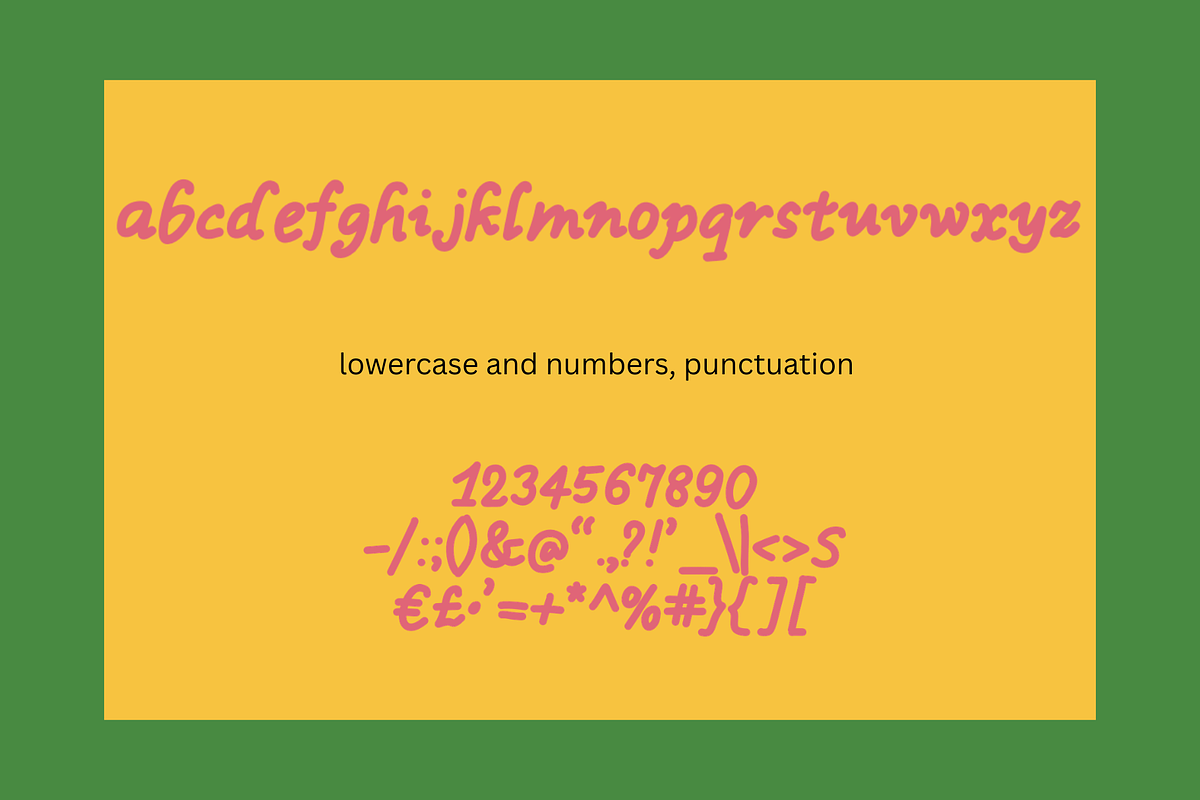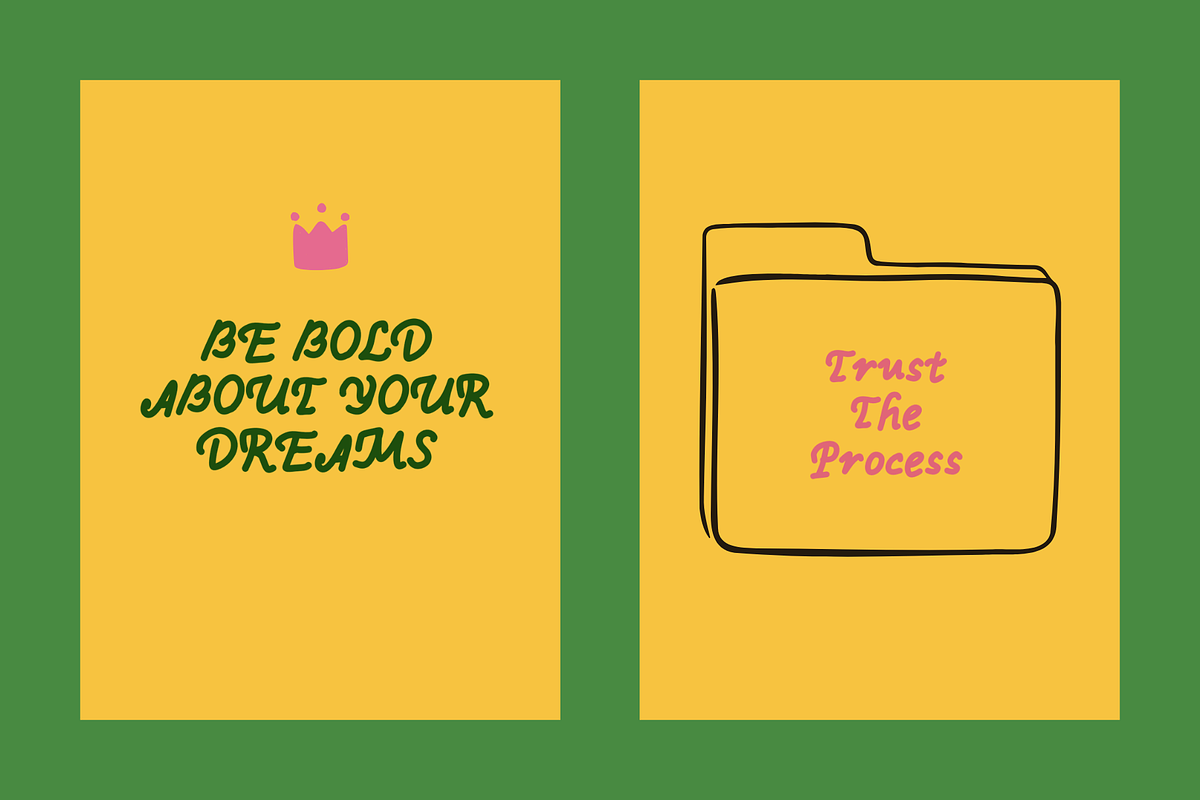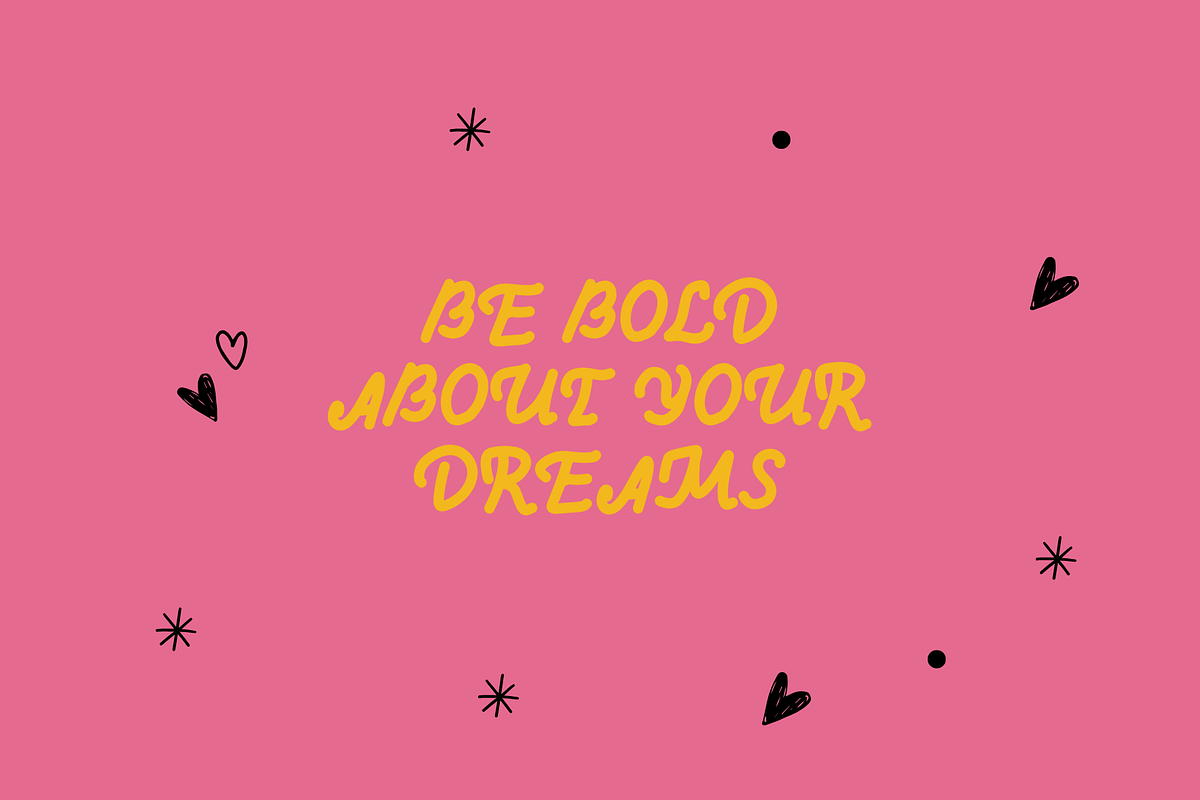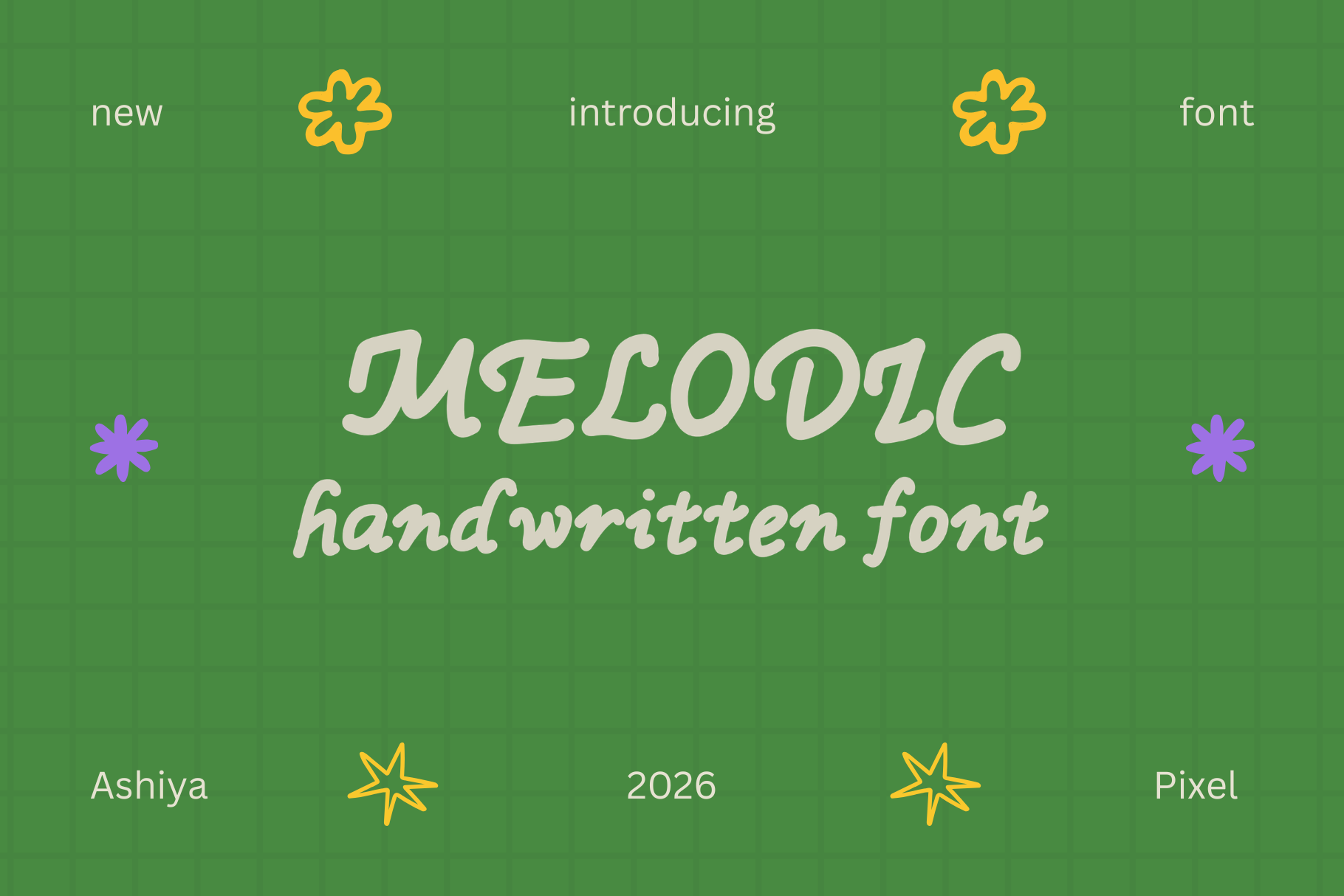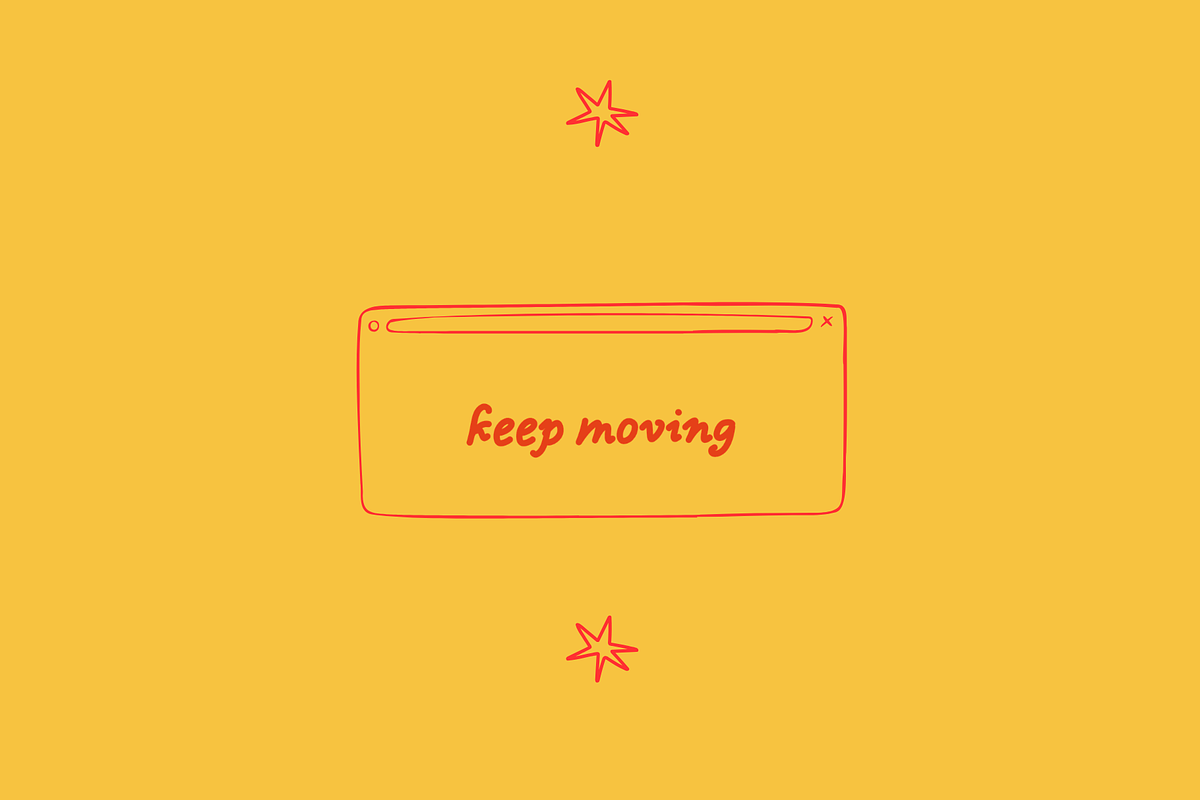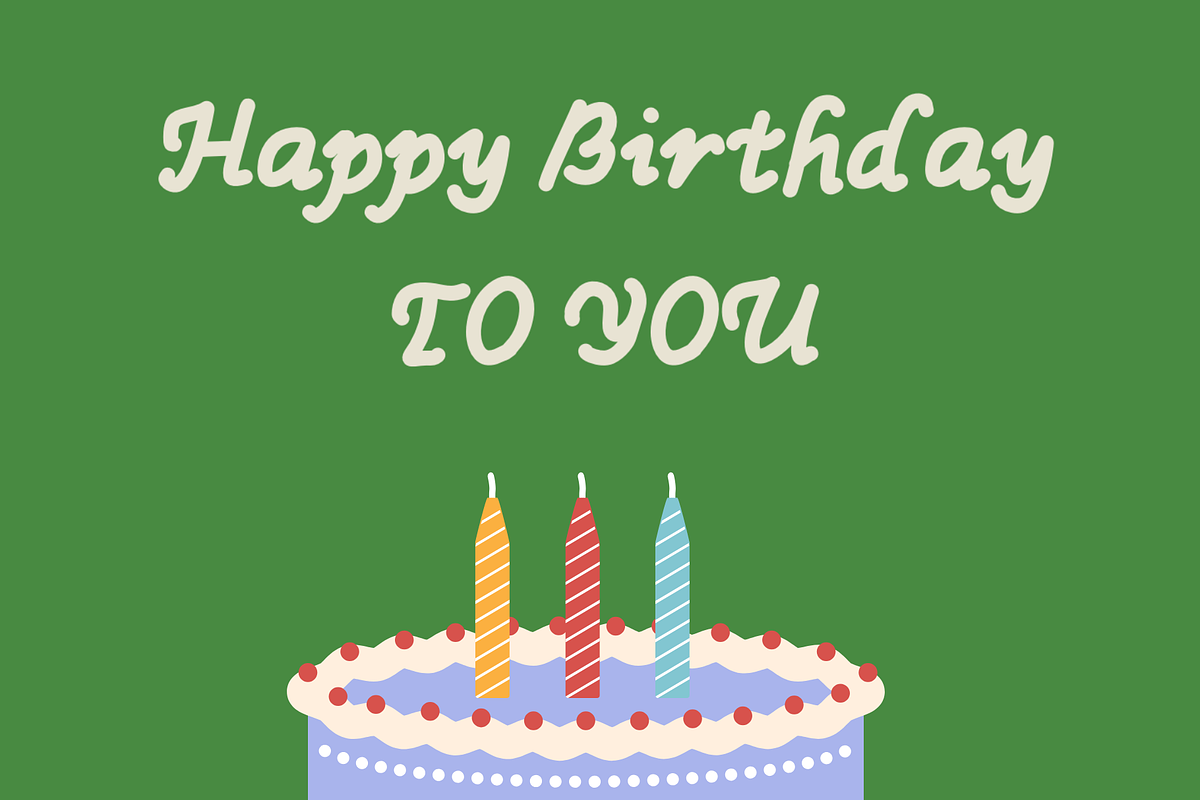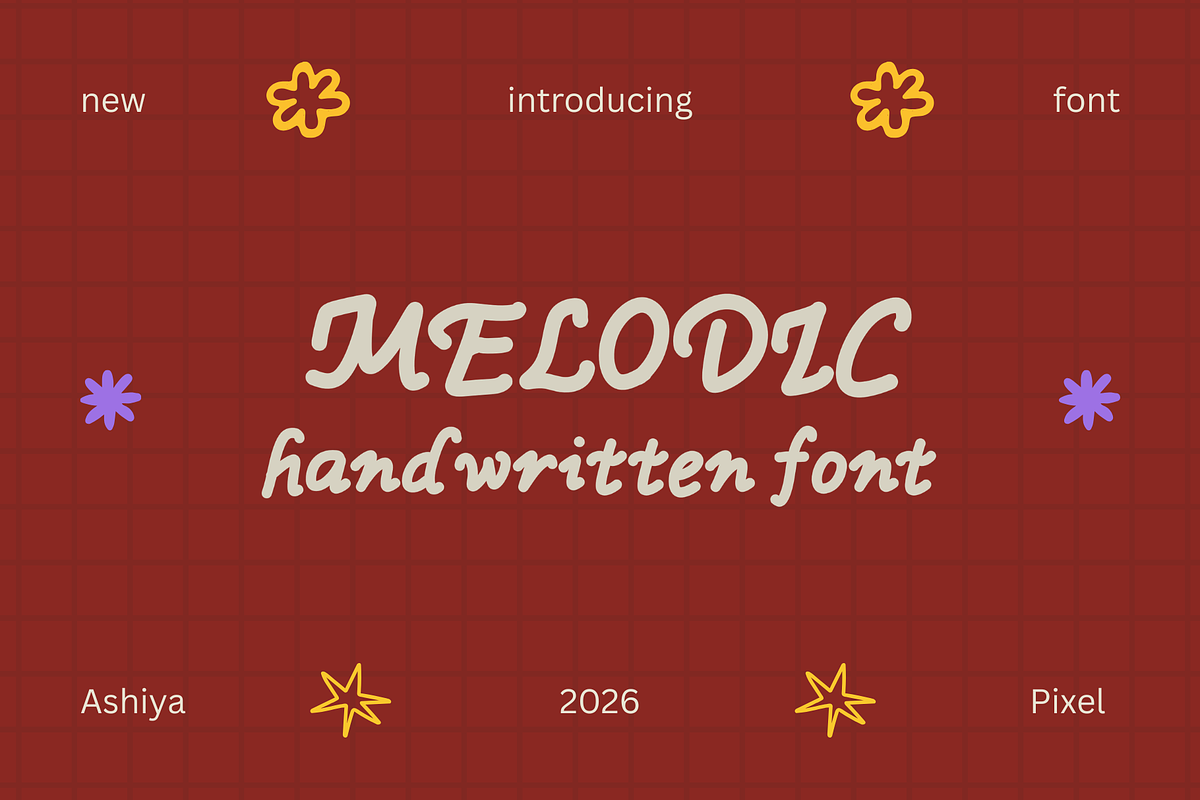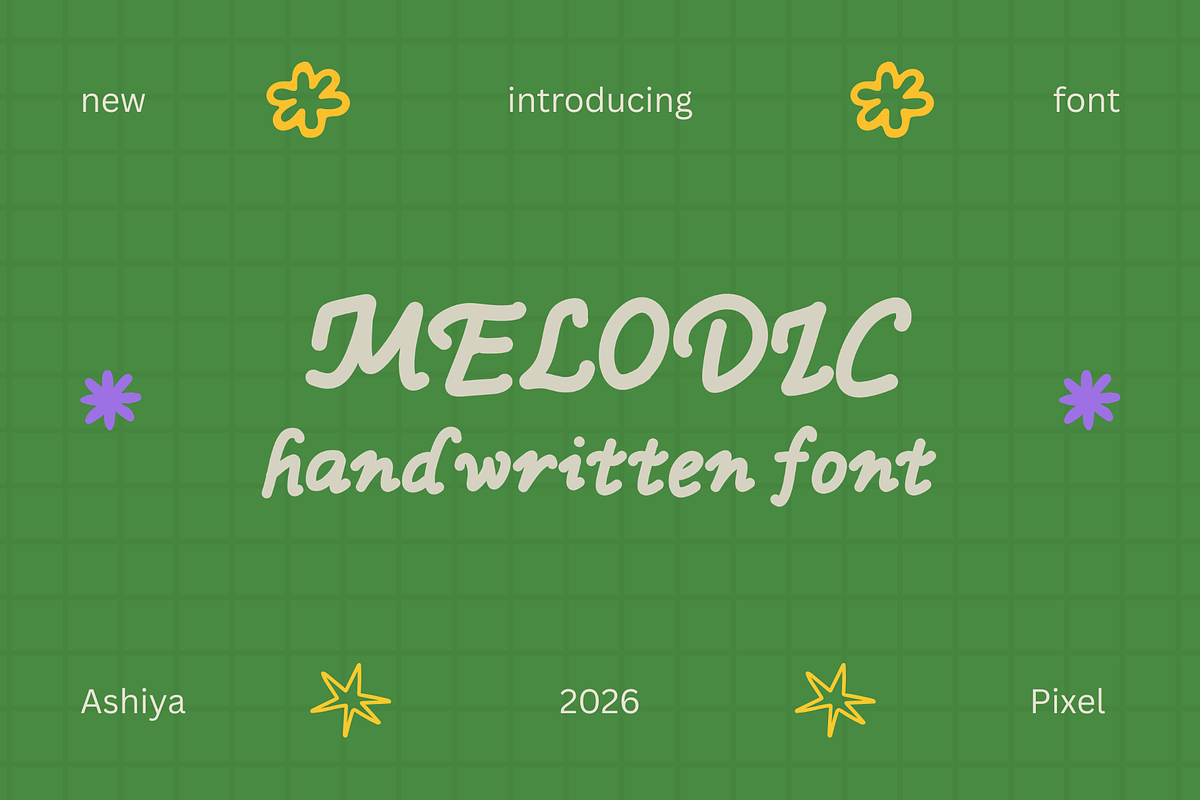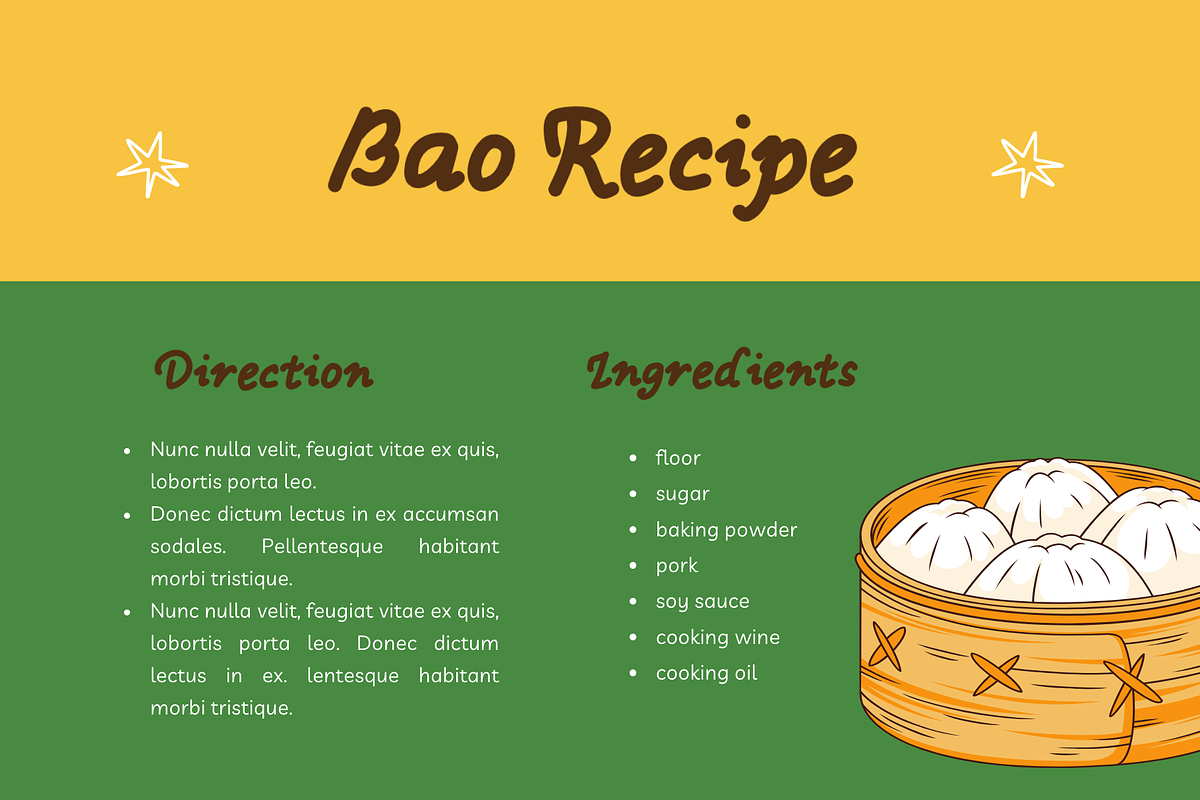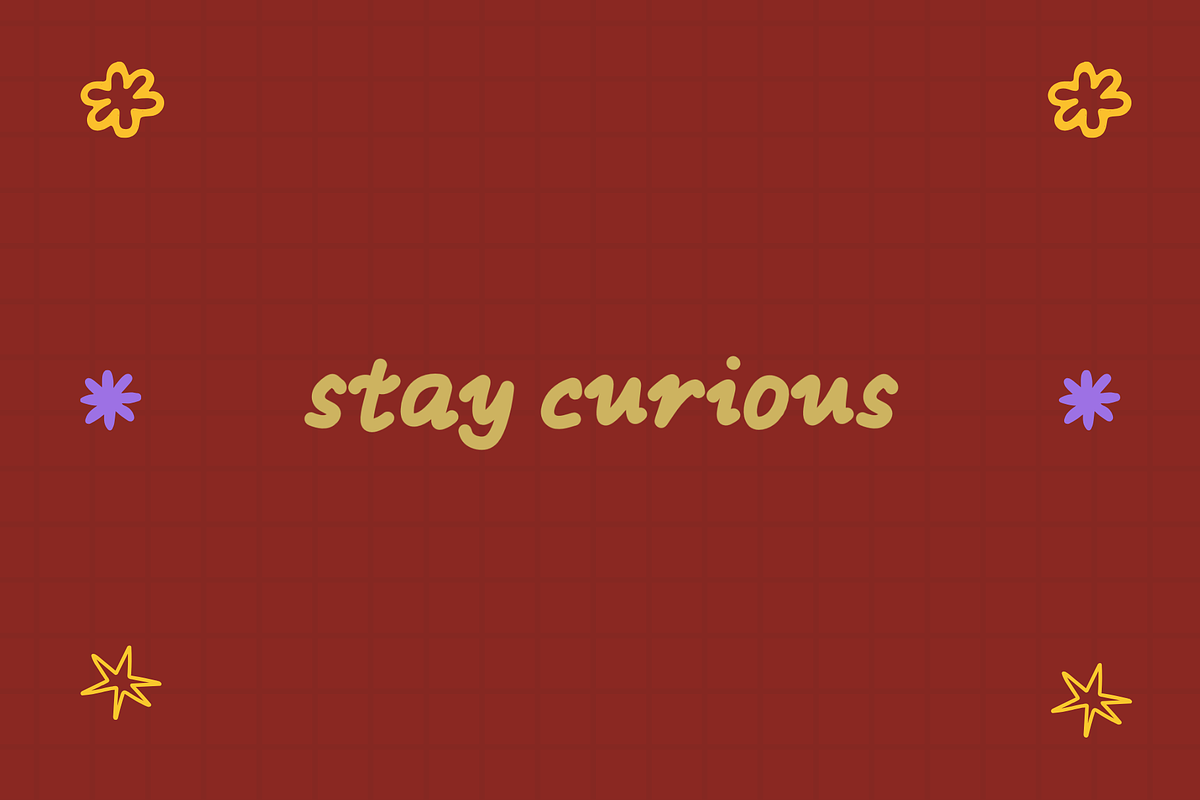
Melodic Playful & Retro Groovy Font
Melodic is a bold, bubbly display serif that blends 70s groovy vibes with modern Y2K aesthetics. Its soft, rounded terminals and dynamic italic slant make it perfect for designers looking to create high-impact, feminine branding that doesn't take itself too seriously. Whether you are designing a trendy podcast cover, eye-catching Instagram quotes, or a funky streetwear logo, this font provides a unique personality that leaps off the screen.
• Bold & Playful: Thick strokes that ensure readability even at small sizes. • Versatile Aesthetic: Fits perfectly into Retro, Y2K, and Soft-Girl design trends. • Design-Ready: Ideal for logo design, product packaging, and social media headers.